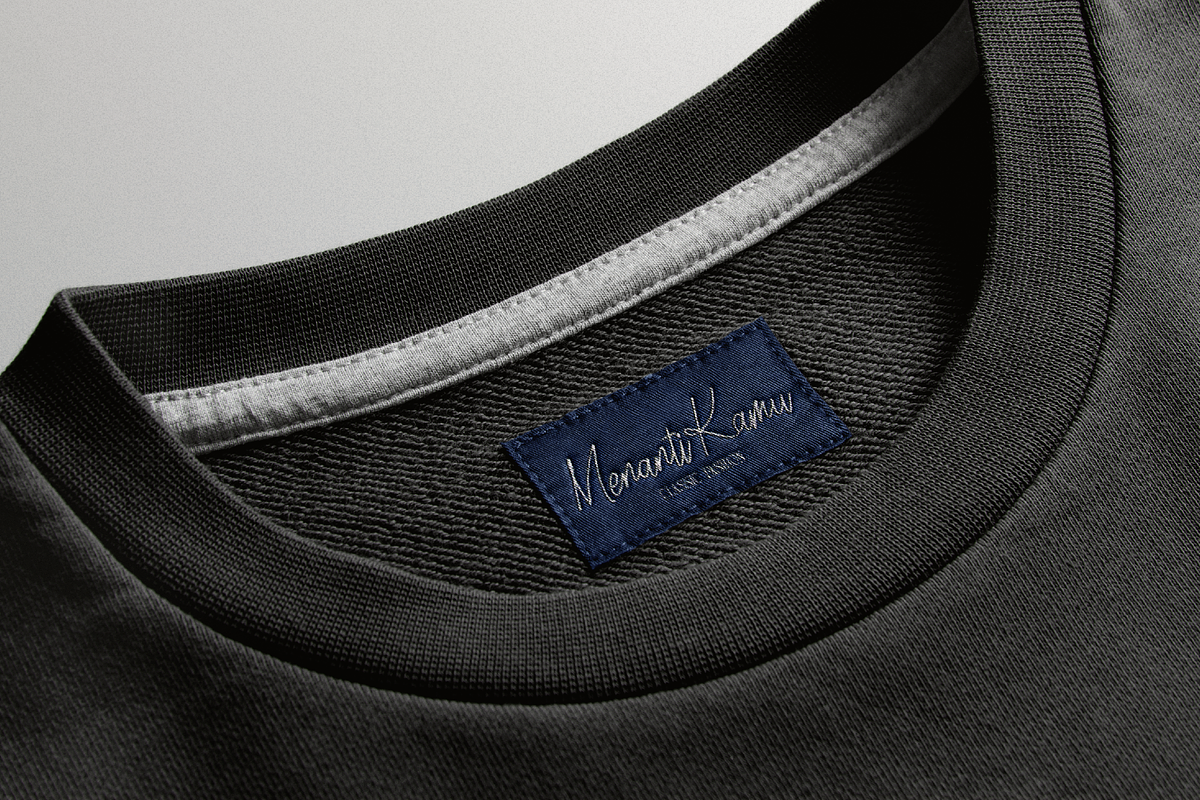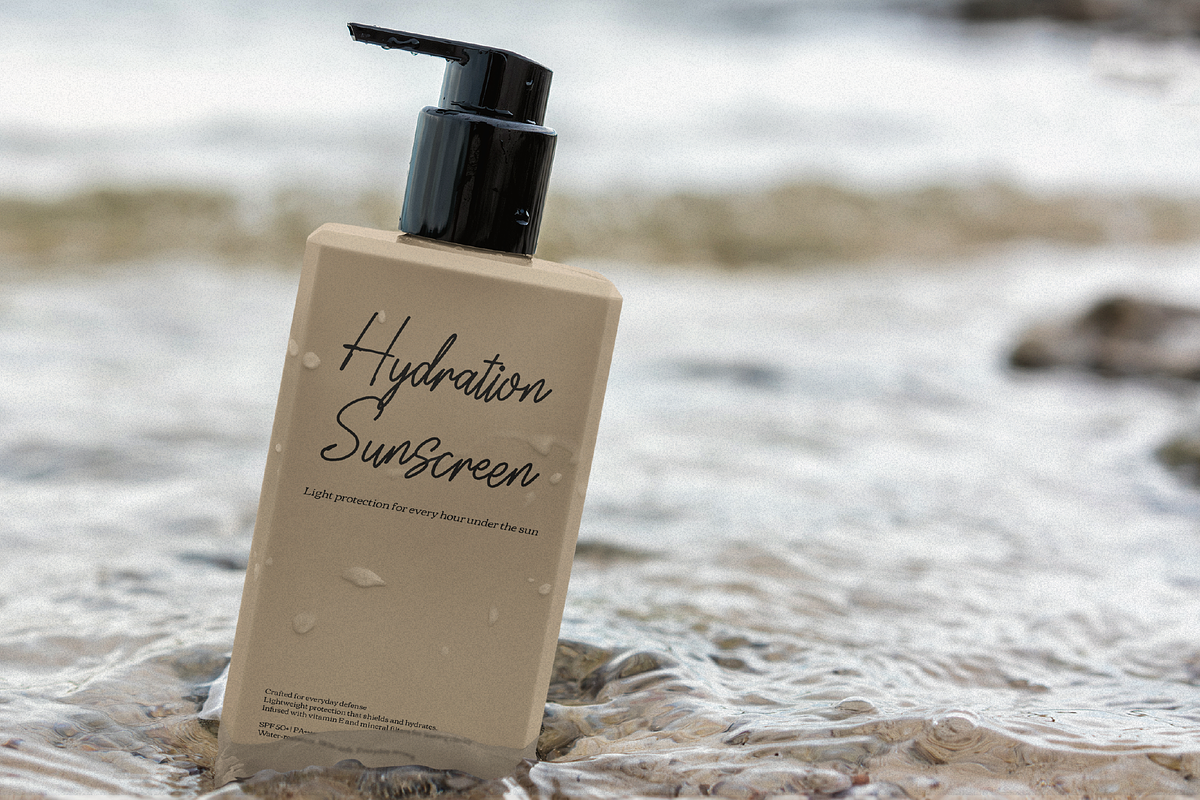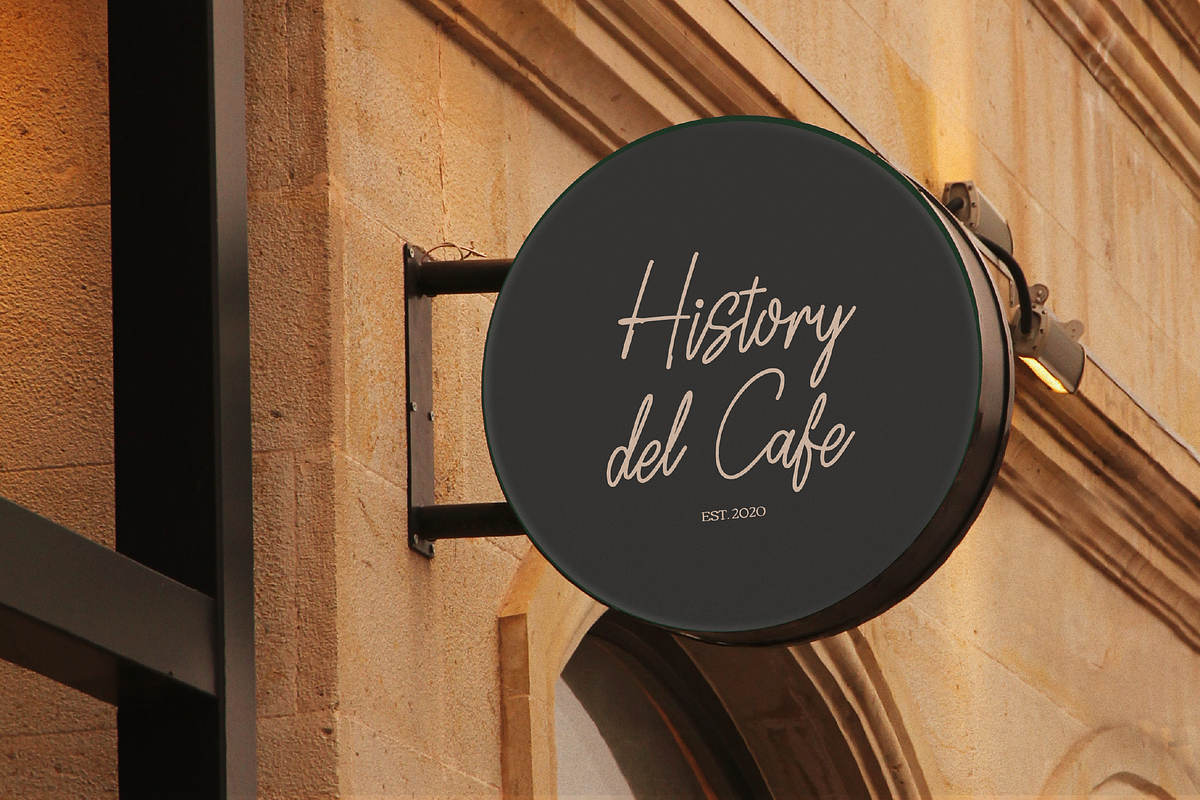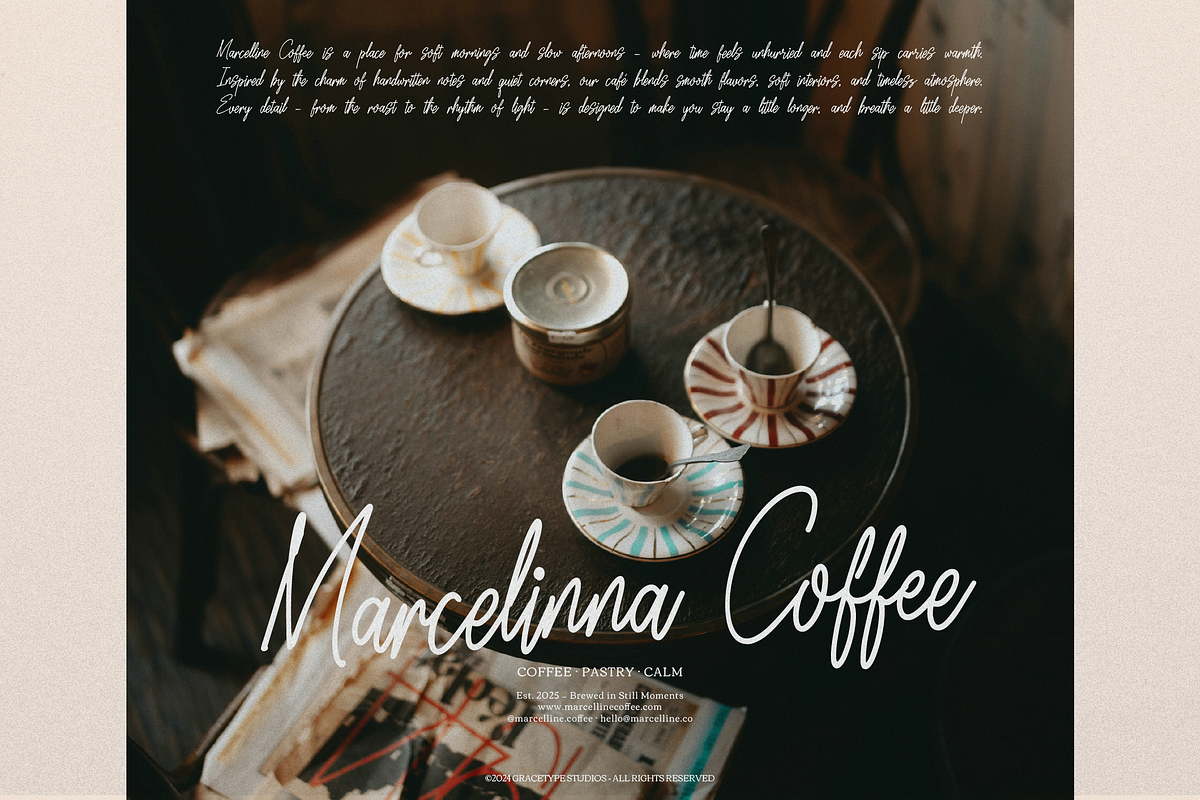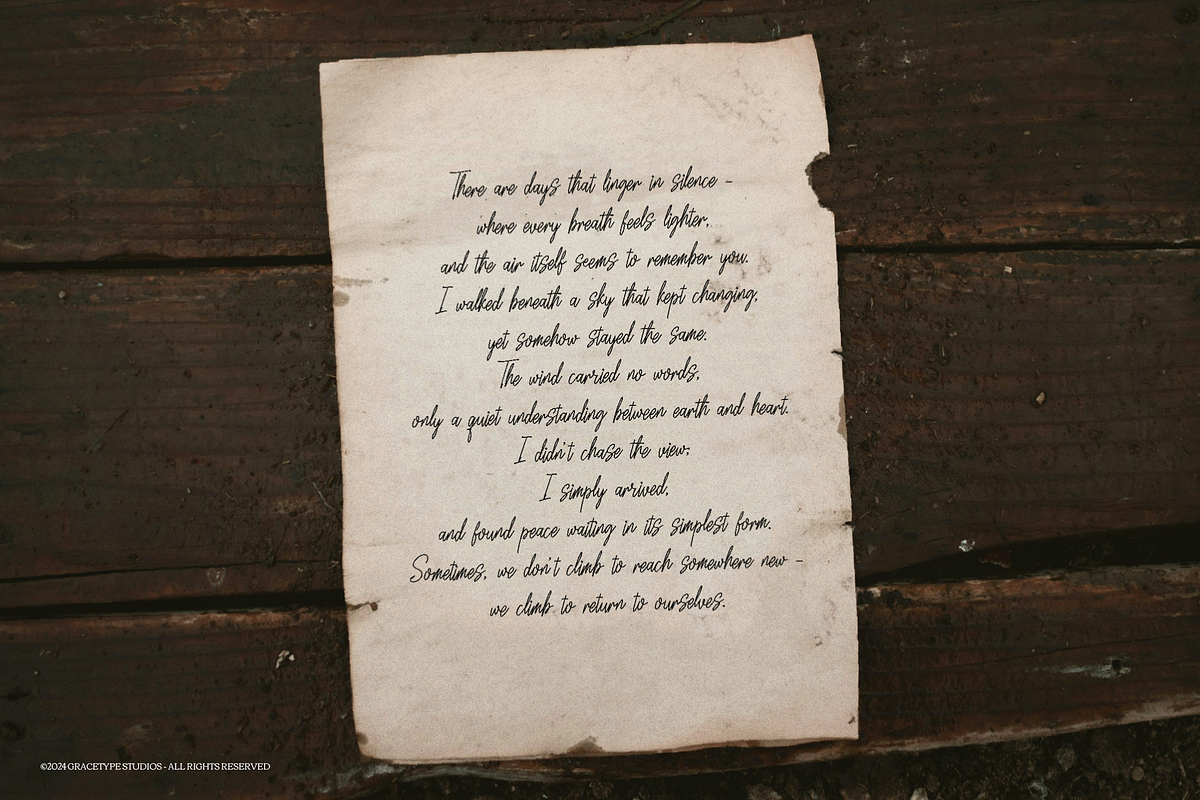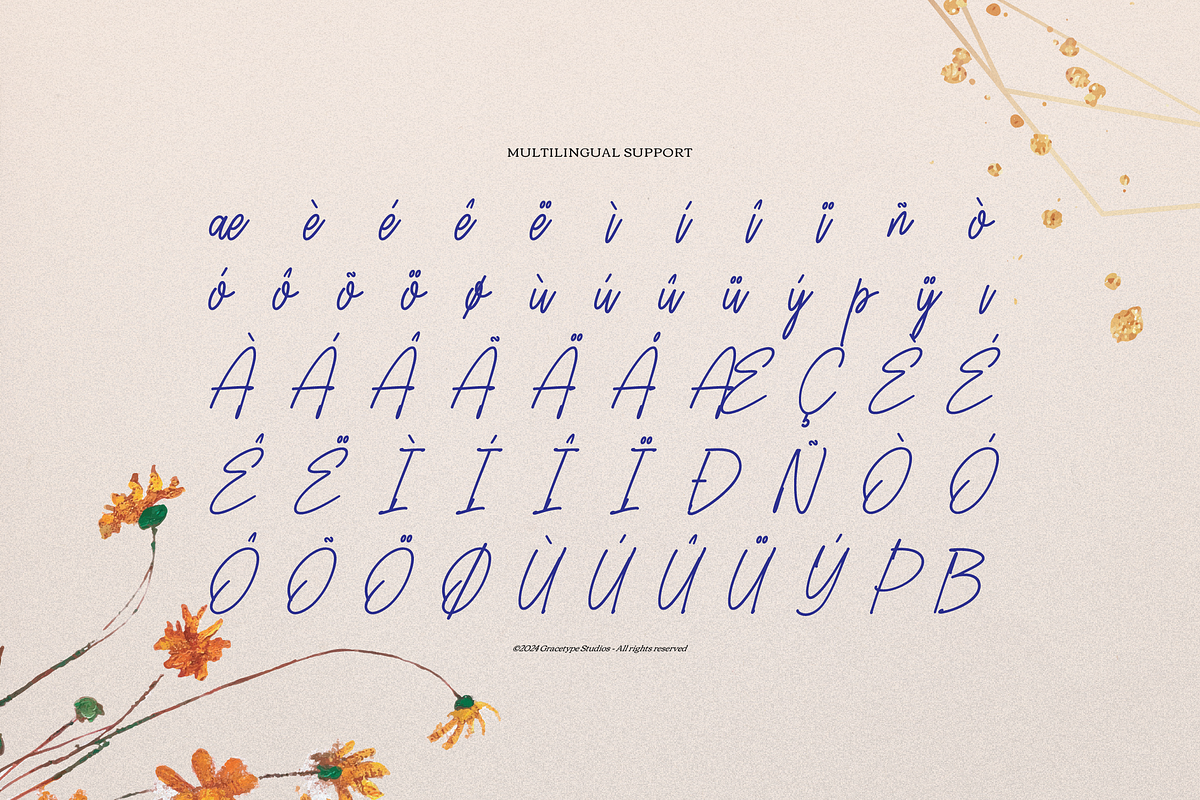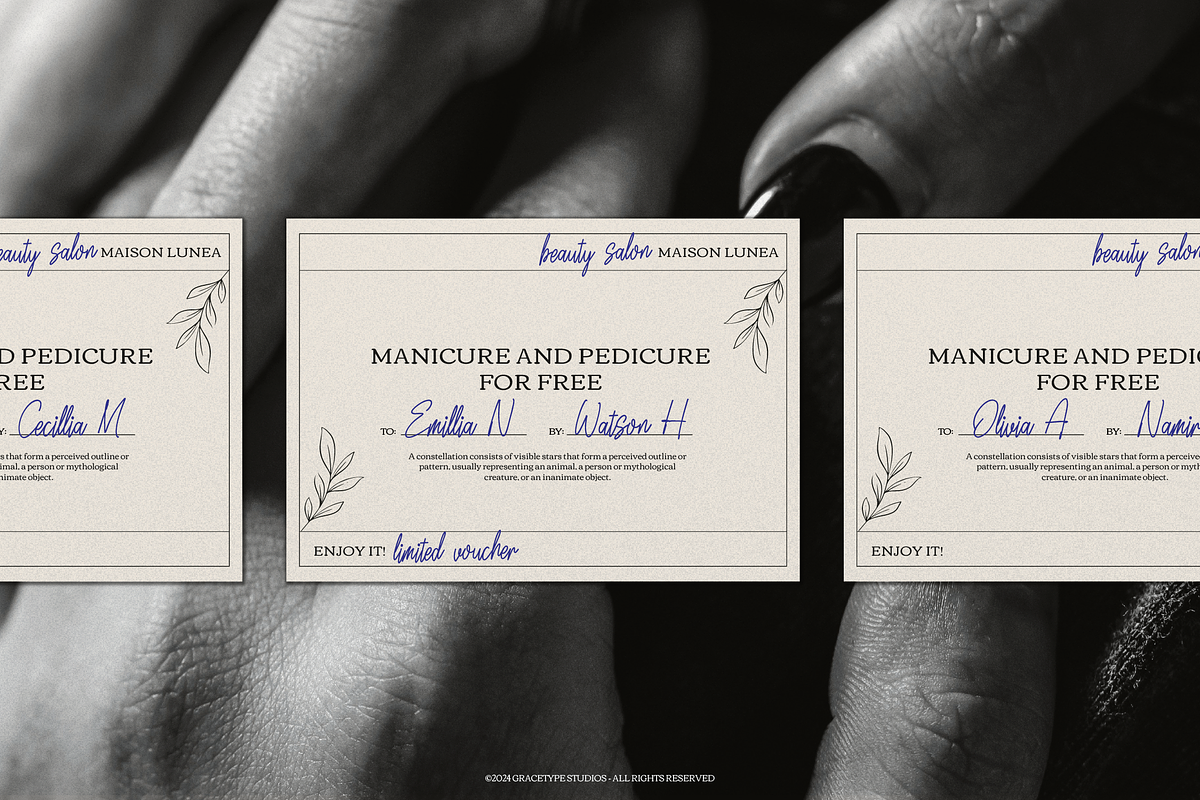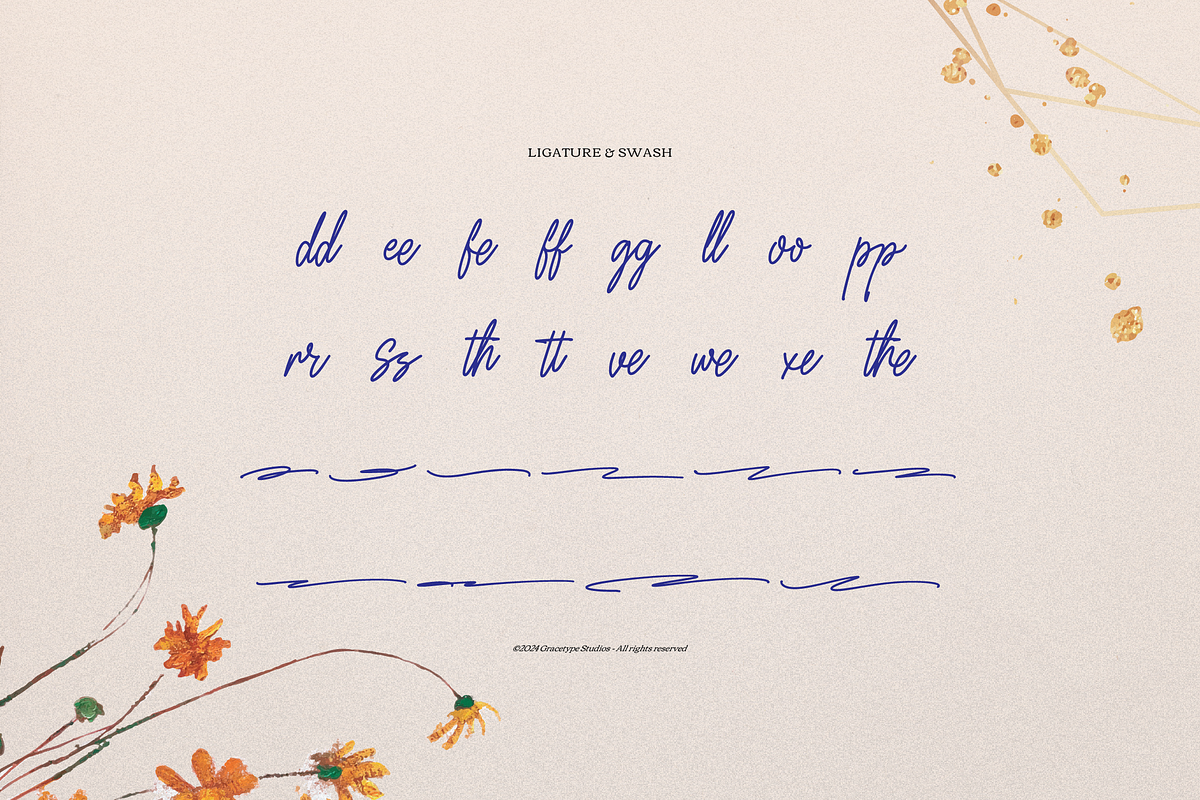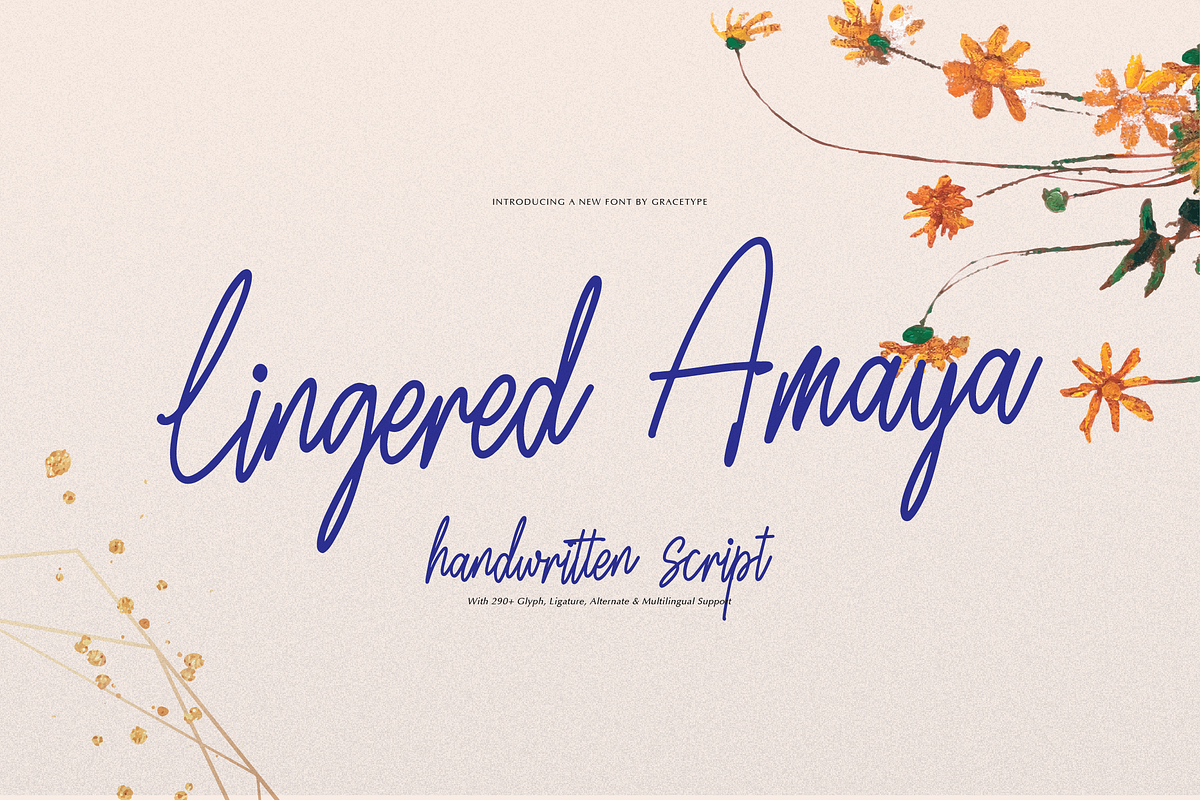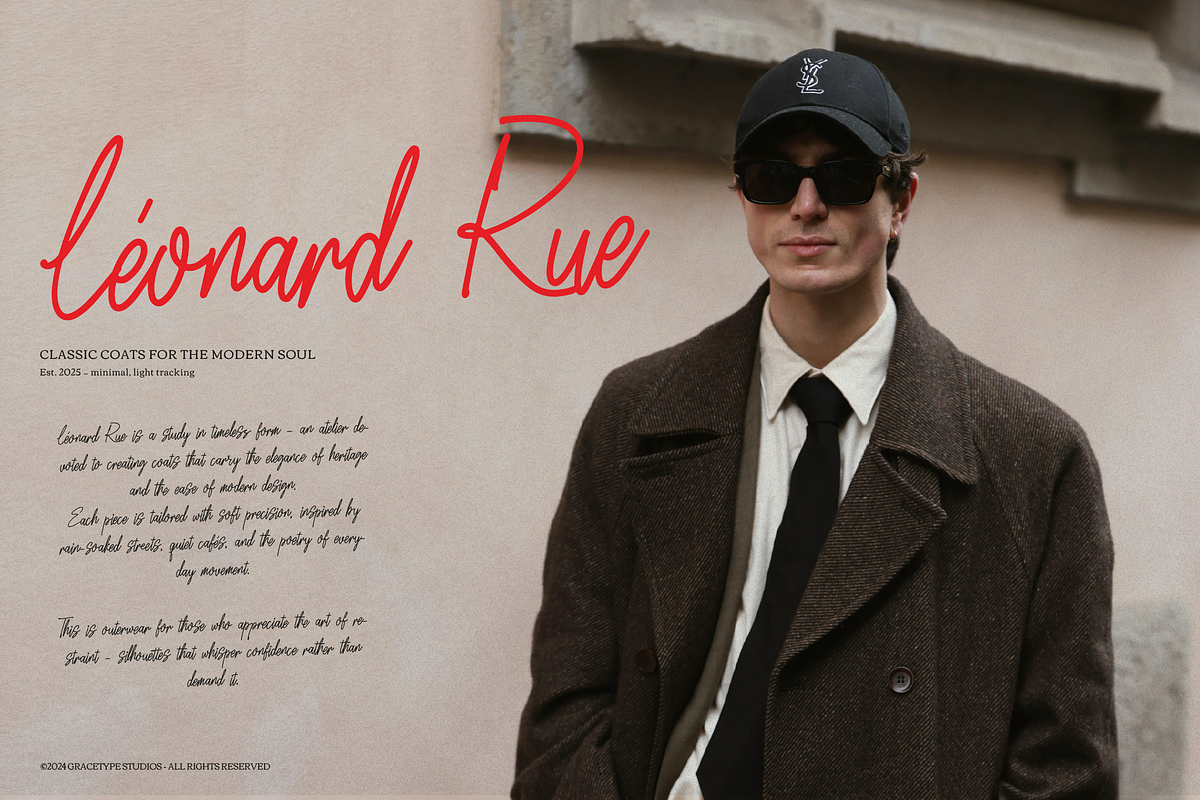
Lingered Amaya | Handwritten Script
Lingered Amaya | Handwritten Script, from Gracetypestudio, suitable for any projects such as: logos, branding projects, homeware designs, product packaging, mugs, quotes, posters, shopping bags, t-shirts, book covers, name card, invitation cards, greeting cards, label, photography, watermark, special events, and all your other lovely projects that need a Script taste.